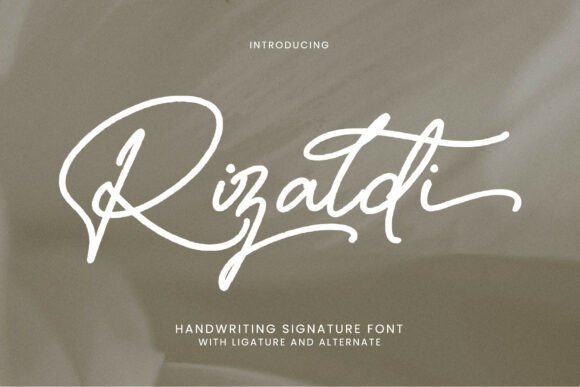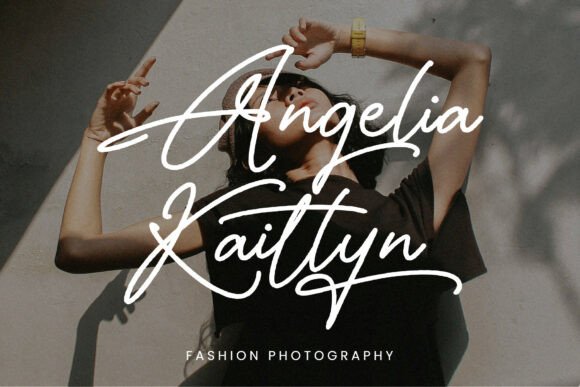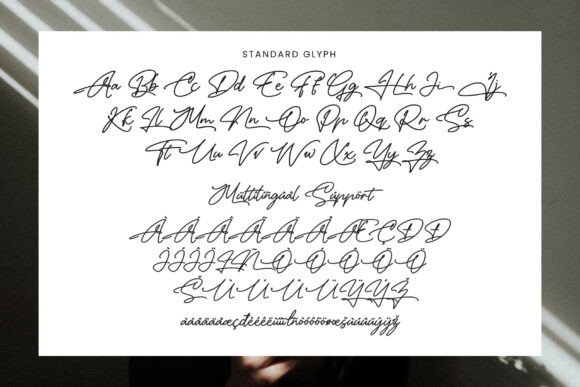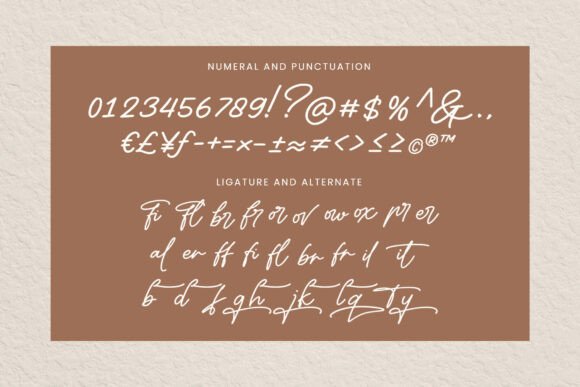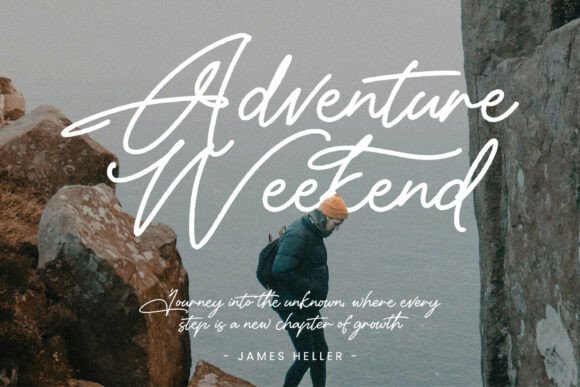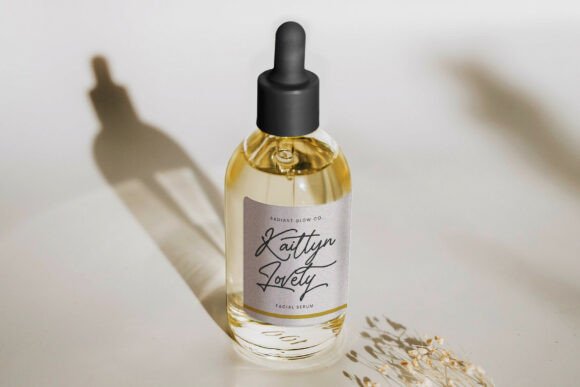
Introduction to Rizaldi Regular Font
Have you ever stared at a blank canvas, trying to find the perfect font to bring your creative project to life? The struggle is real, but what if I told you there’s a font that can elevate your design to the next level? Meet Rizaldi Regular Font, a stunning signature handwriting font that exudes elegance and sophistication.
With its fine monoline strokes and natural flow, Rizaldi Regular Font is the perfect addition to any design resource. Whether you’re creating premium product packaging, wedding invitations, or photography watermarks, this font is sure to add a touch of class and professionalism to your work. And the best part? It’s available for free download, making it a valuable asset for designers who crave high-quality fonts without breaking the bank.
As a designer, you know that the right font can make all the difference in a project. Rizaldi Regular Font is more than just a font – it’s a design resource that can help you create stunning, high-quality designs that leave a lasting impression. So why settle for anything less when you can have the best? Dive into the world of Rizaldi Regular Font and discover a new level of design excellence.
Key Features of Rizaldi Regular Font
- Unique characteristic: Rizaldi Regular Font features a clean and modern design, making it an excellent choice for various creative projects
Honest Review: Rizaldi Regular Font
As a designer, I’m always on the lookout for high-quality fonts that can elevate my creative projects. The Rizaldi Regular Font is one such resource that caught my attention, and I’m excited to share my honest review with you.
Here are some of the things that work well with the Rizaldi Regular Font:
- ✨ Unique and elegant design that’s perfect for modern designs.
- ✨ High-quality font that’s optimized for digital use.
While the Rizaldi Regular Font is a great addition to any designer’s toolkit, there are some limitations to consider:
Overall, I’m impressed with the Rizaldi Regular Font, and I think it’s a great choice for designers who need a high-quality, free font for their creative projects. With its elegant design and transparent background, it’s a versatile resource that can be used in a variety of contexts. Just be aware of the limitations, and you’ll be good to go.